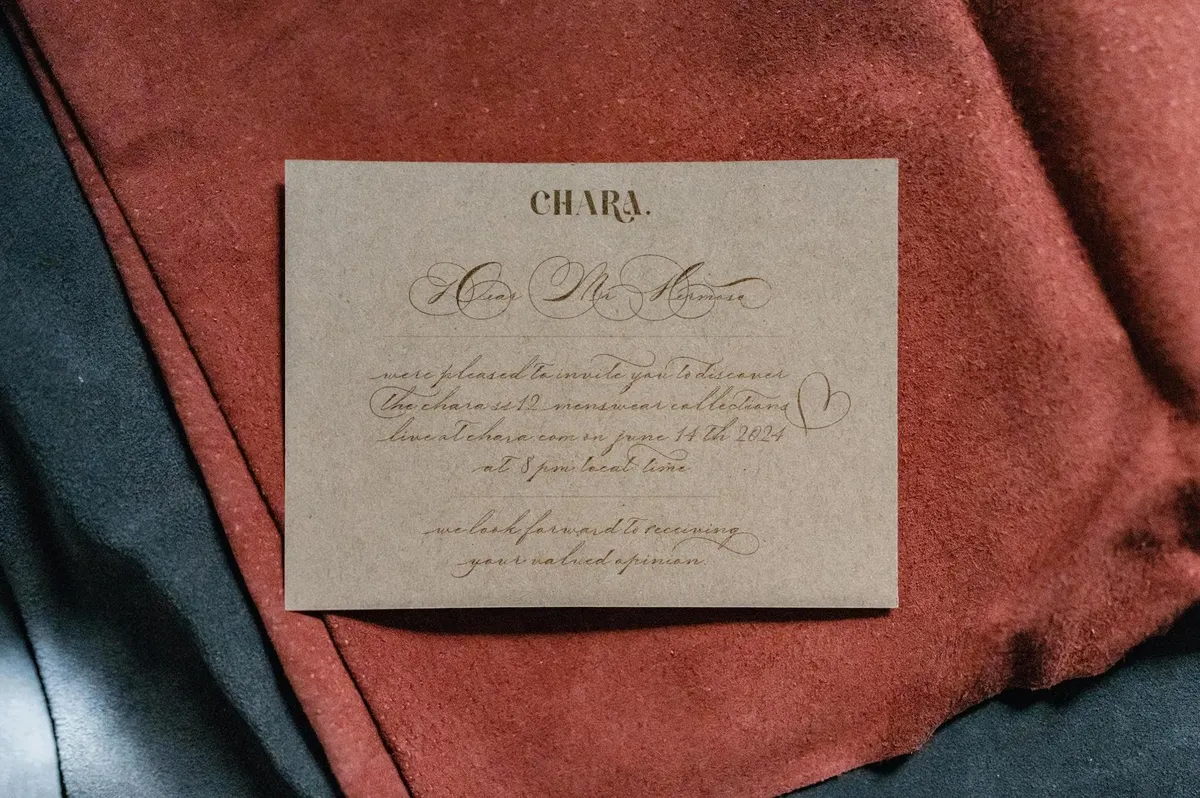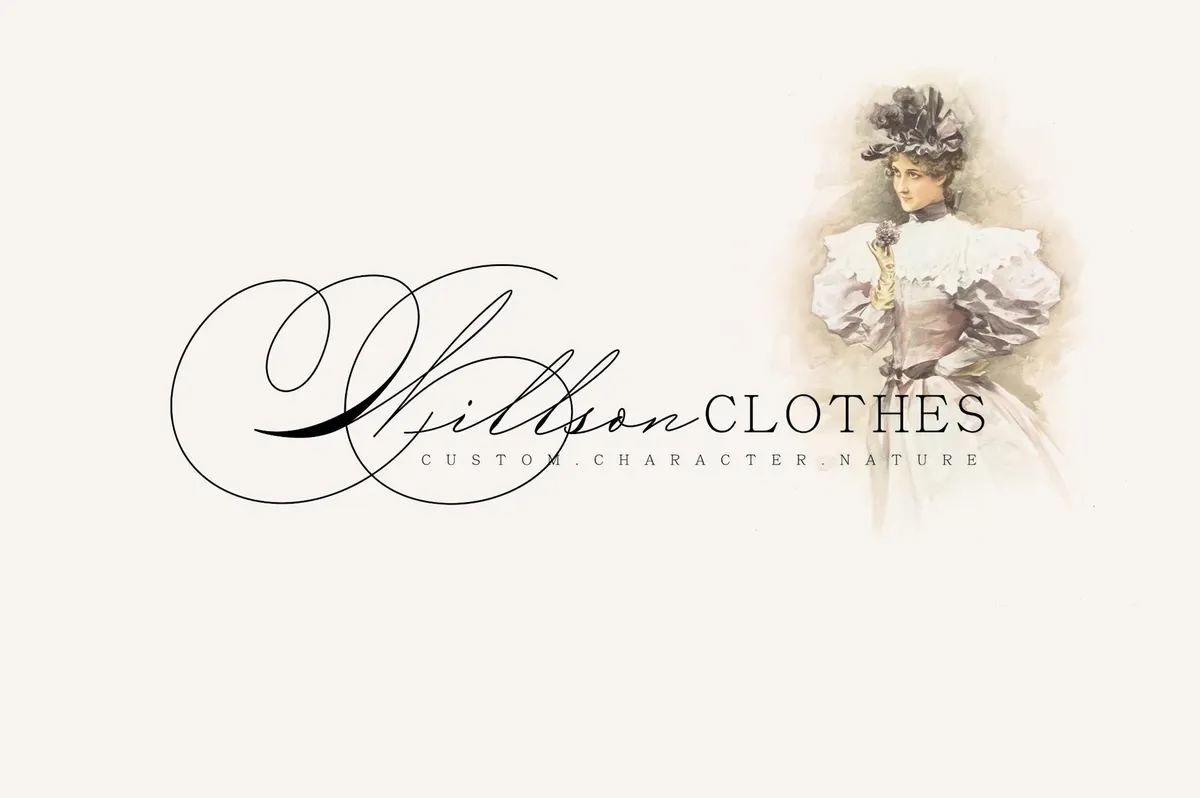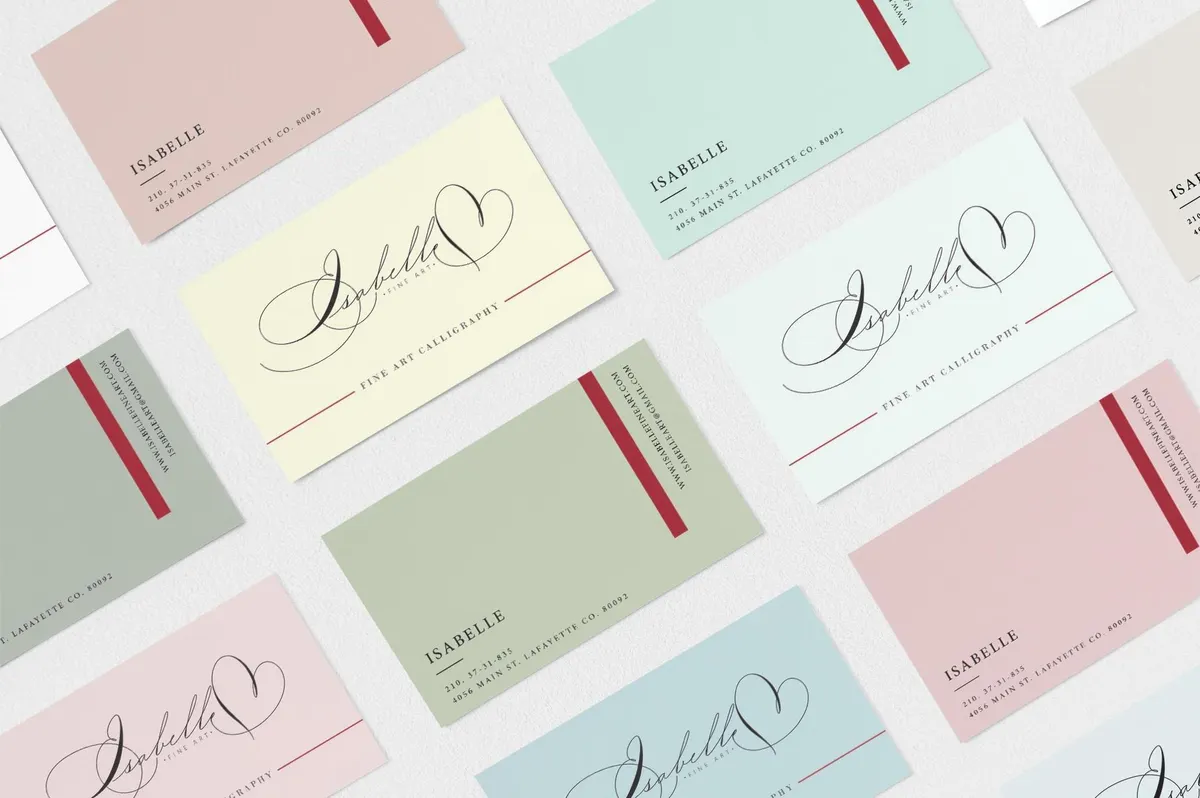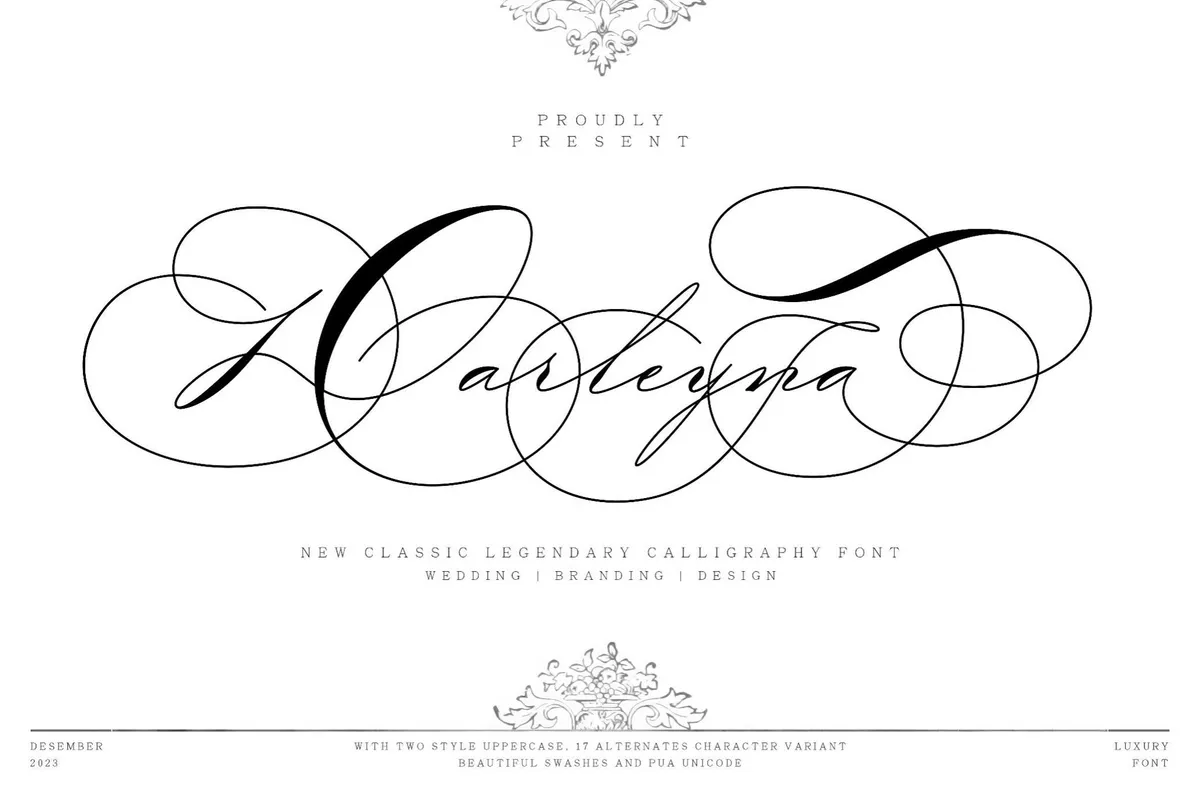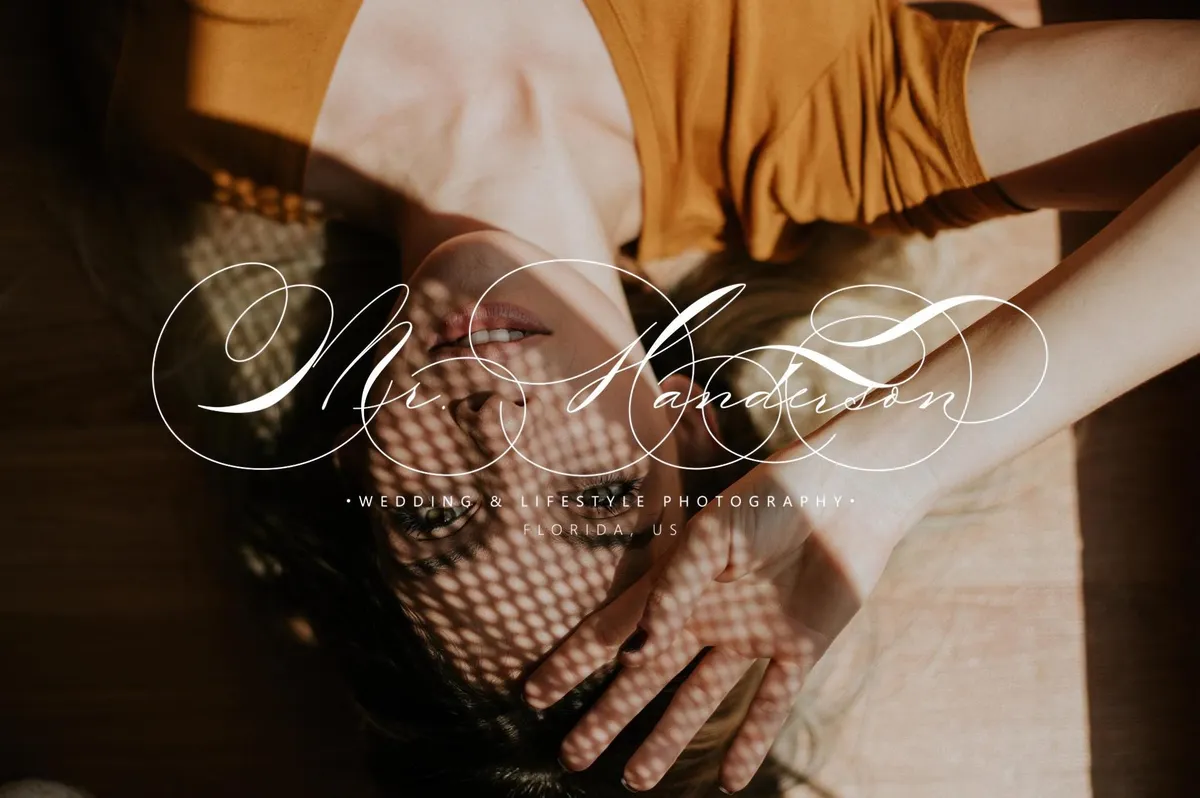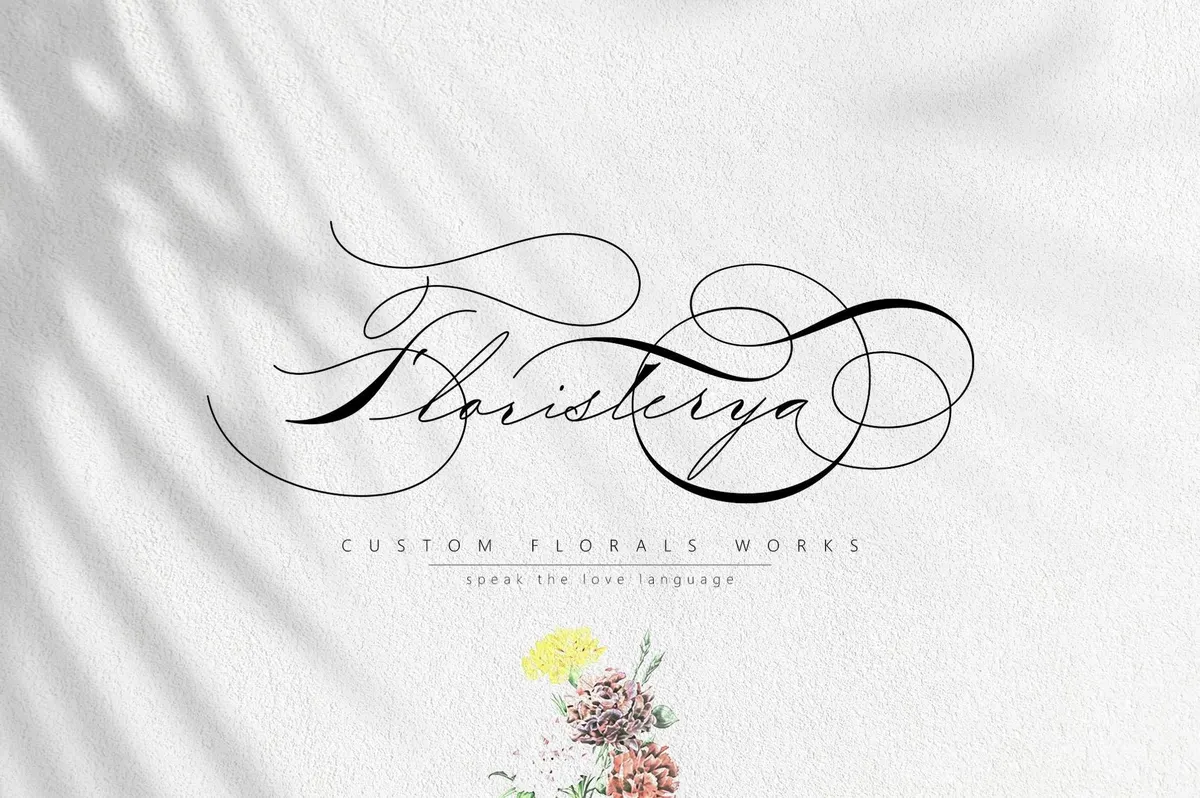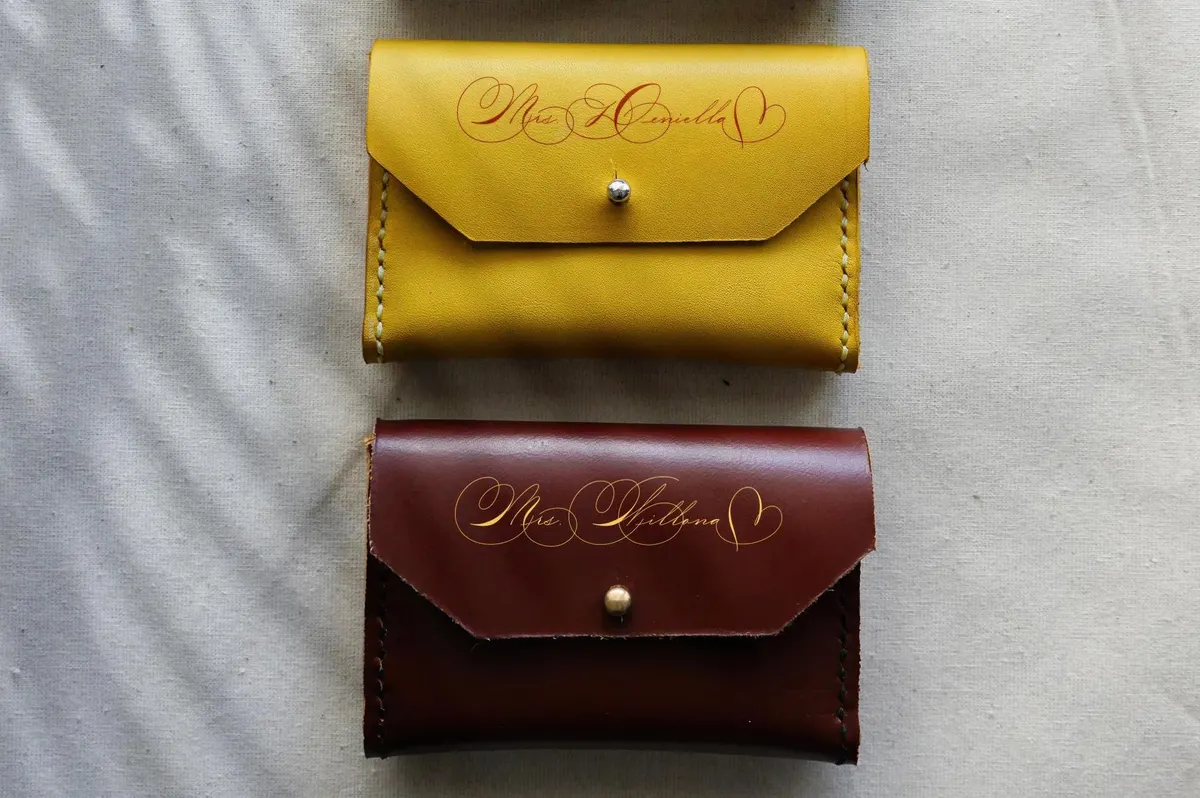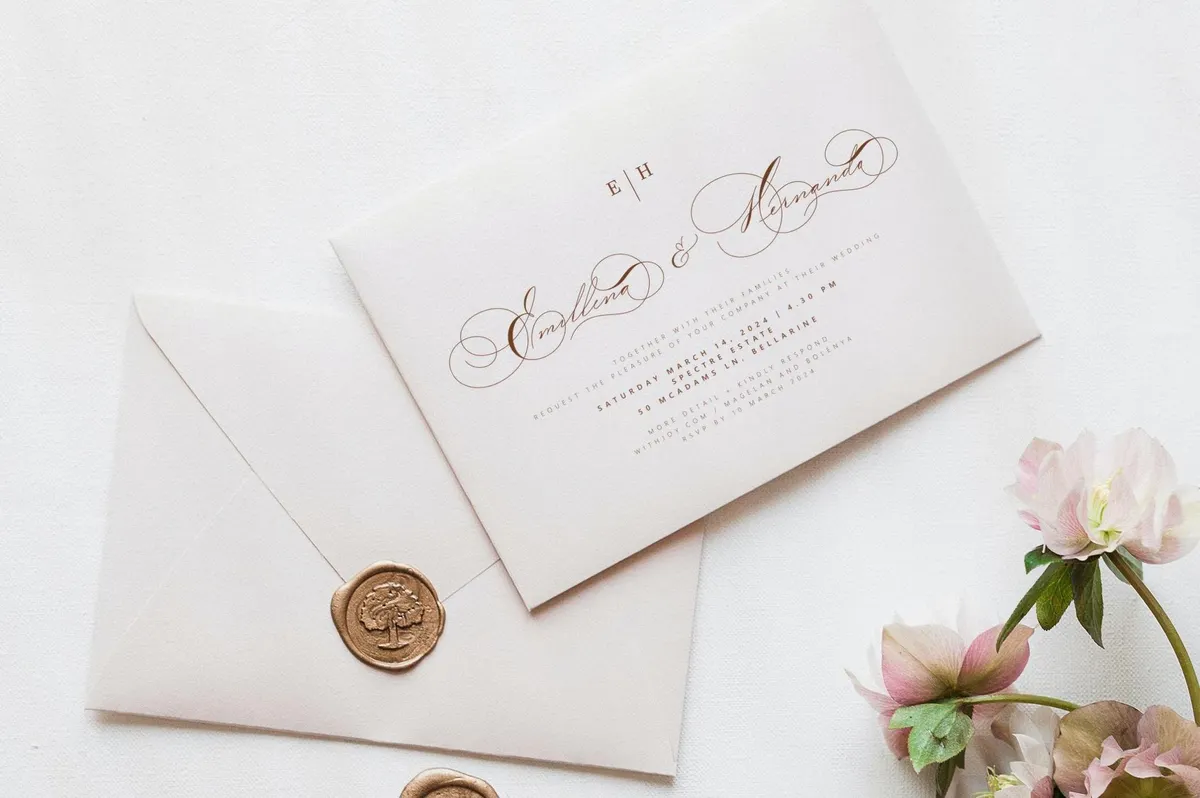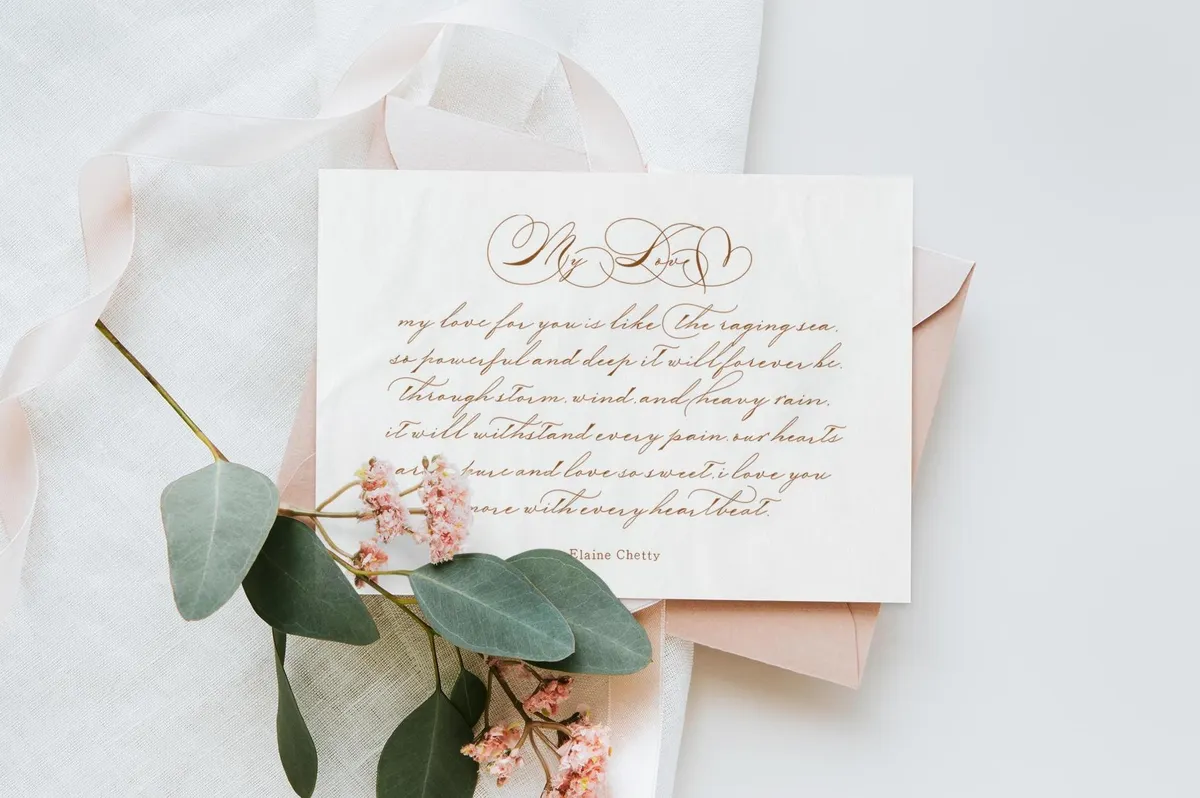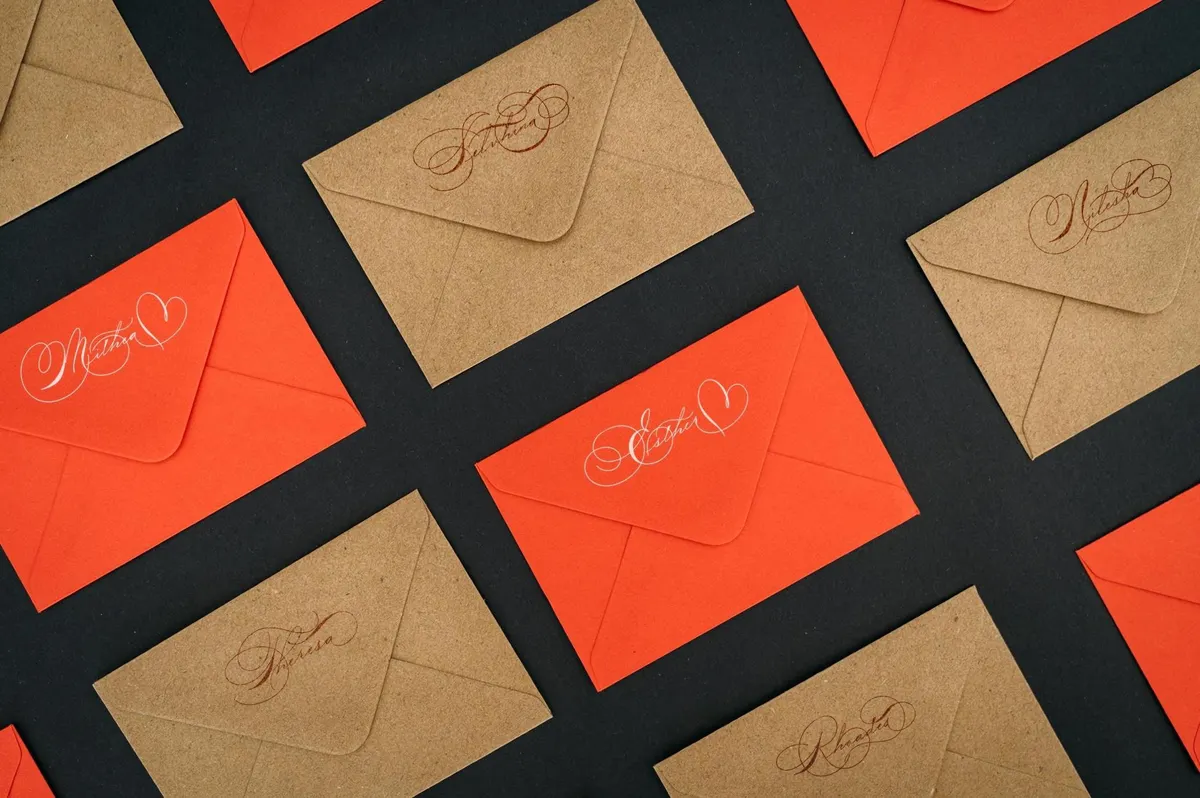
Darleyna calligraphy script emphasizes classical elegance and expressive flourishes. Every swash and curve calls for a romantic, high-end aesthetic — something from wedding invitations, branding, editorial headers, and stationery.
The font includes 600+ glyphs, featuring a rich set of OpenType alternates, stylistic sets, swashes, and contextual characters, plus PUA encoding for full access across all platforms. It supports international characters, punctuation, and numbers, with two distinct uppercase styles and seamless compatibility with Adobe apps, CorelDRAW, and even system tools like Font Book and Character Map.